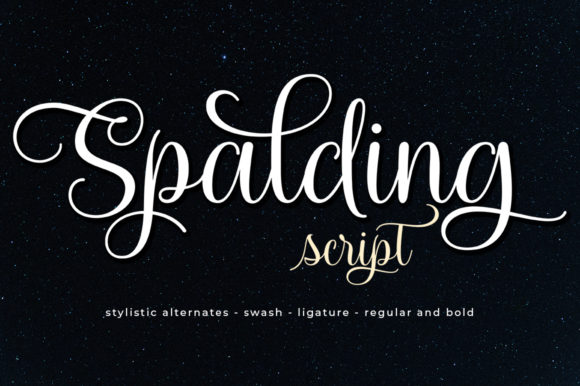
Immerse yourself in the timeless beauty of Spalding Font, a script font family that exudes elegance and romance. Crafted by the renowned Zane Studio, Spalding captivates hearts with its sweeping swashes and playful uniqueness. Prepare to be swept off your feet as you envision your words adorned in this exquisite typeface.
Step into a world of refined aesthetics and experience the joy of crafting designs that resonate with emotion. Spalding's meticulously crafted characters dance across the page, evoking the charm of handwritten letters penned with care. Each stroke carries the weight of history, paying homage to the enduring legacy of calligraphy while whispering tales of love, longing, and timeless beauty.
Unleash your creativity and embrace the endless possibilities that Spalding presents. With its extensive character set, including uppercase and lowercase letters, numerals, and a treasure trove of symbols, you'll find the perfect adornment for your creative projects. Whether you're designing wedding invitations, enchanting logos, or heartfelt social media posts, Spalding will effortlessly elevate your words and make them shine.
As you explore Spalding's diverse collection of weights, from the delicate Regular to the bold and commanding Black, you'll discover a spectrum of expressive options that cater to your every need. Let your imagination soar as you juxtapose delicate strokes with bold statements, creating a visual symphony that captivates and inspires.
Spalding is more than just a font; it's an invitation to embark on a journey of self-expression. Whether you're a seasoned designer or just beginning your creative exploration, Spalding will become your trusted companion, guiding you towards design excellence. Its versatility shines through in a myriad of applications, from branding and packaging to web design and social media graphics.
With Spalding as your creative ally, you'll leave an indelible mark on the hearts and minds of your audience. Your designs will radiate a timeless charm, evoking a sense of nostalgia and elegance that transcends fleeting trends. So, embrace the allure of Spalding Font and embark on a creative odyssey that promises to captivate and inspire for generations to come.